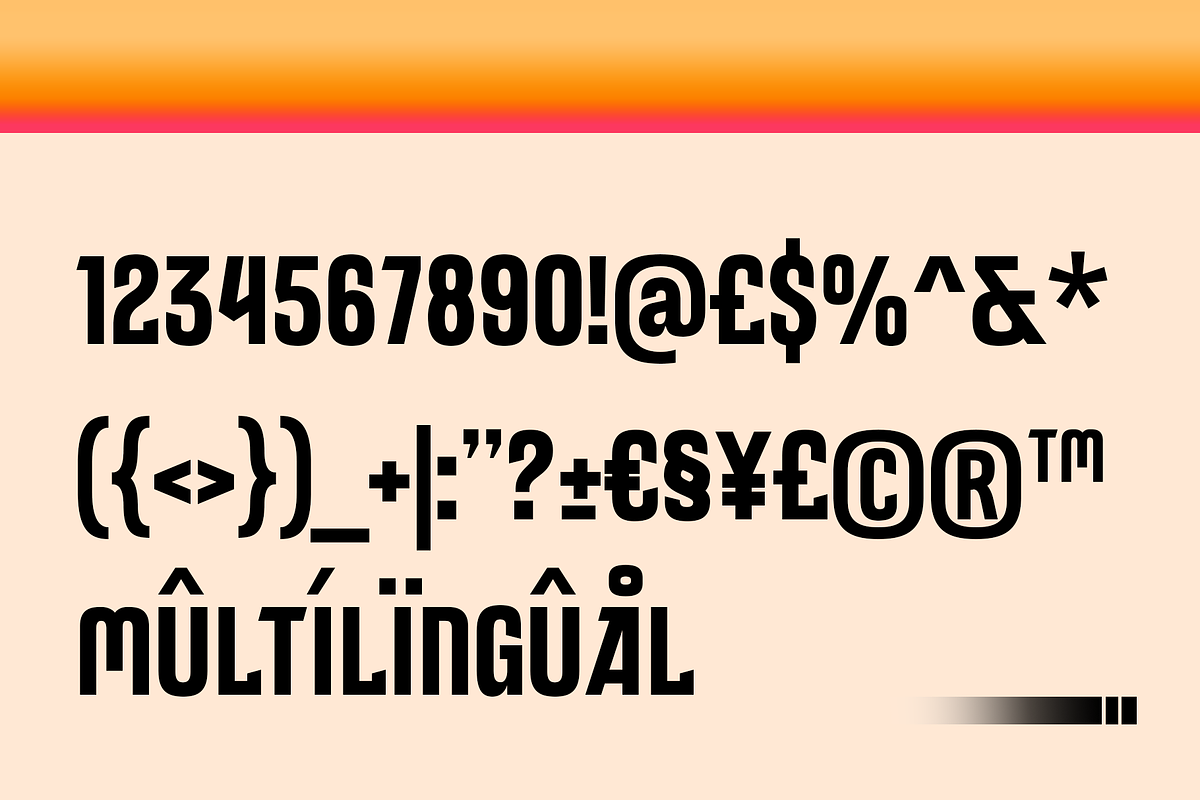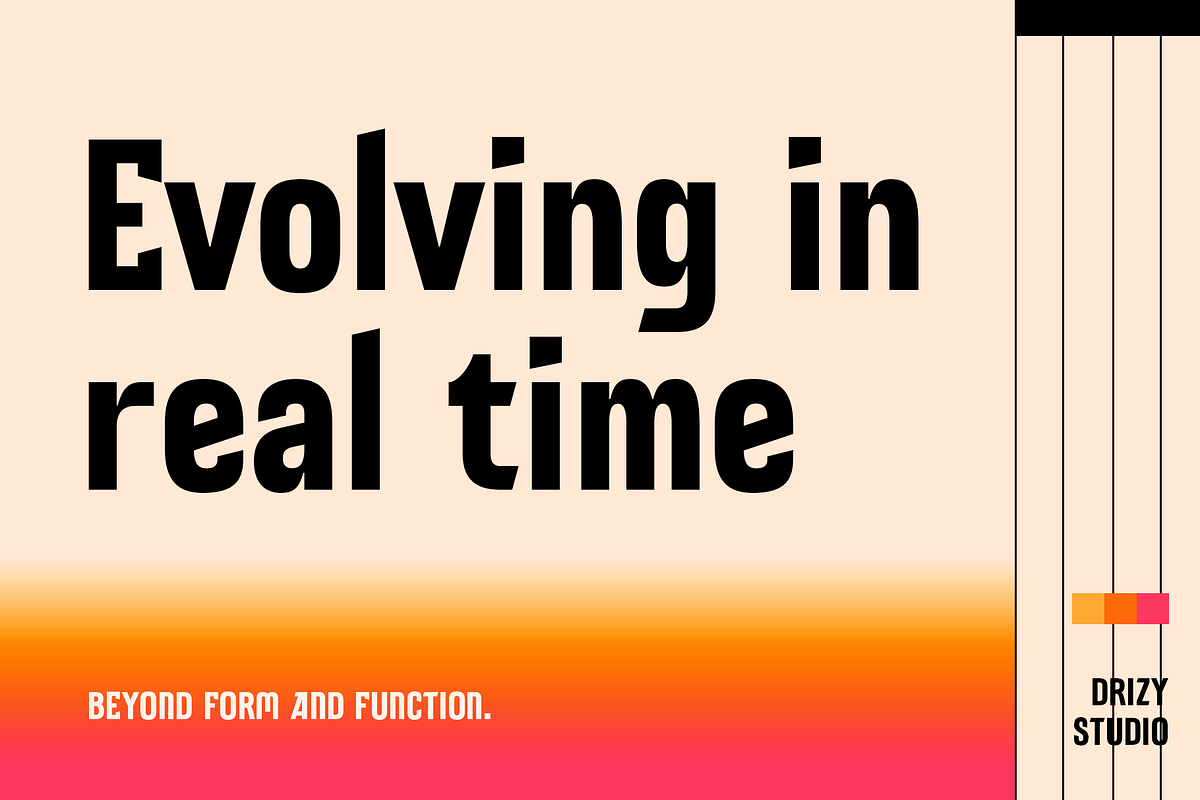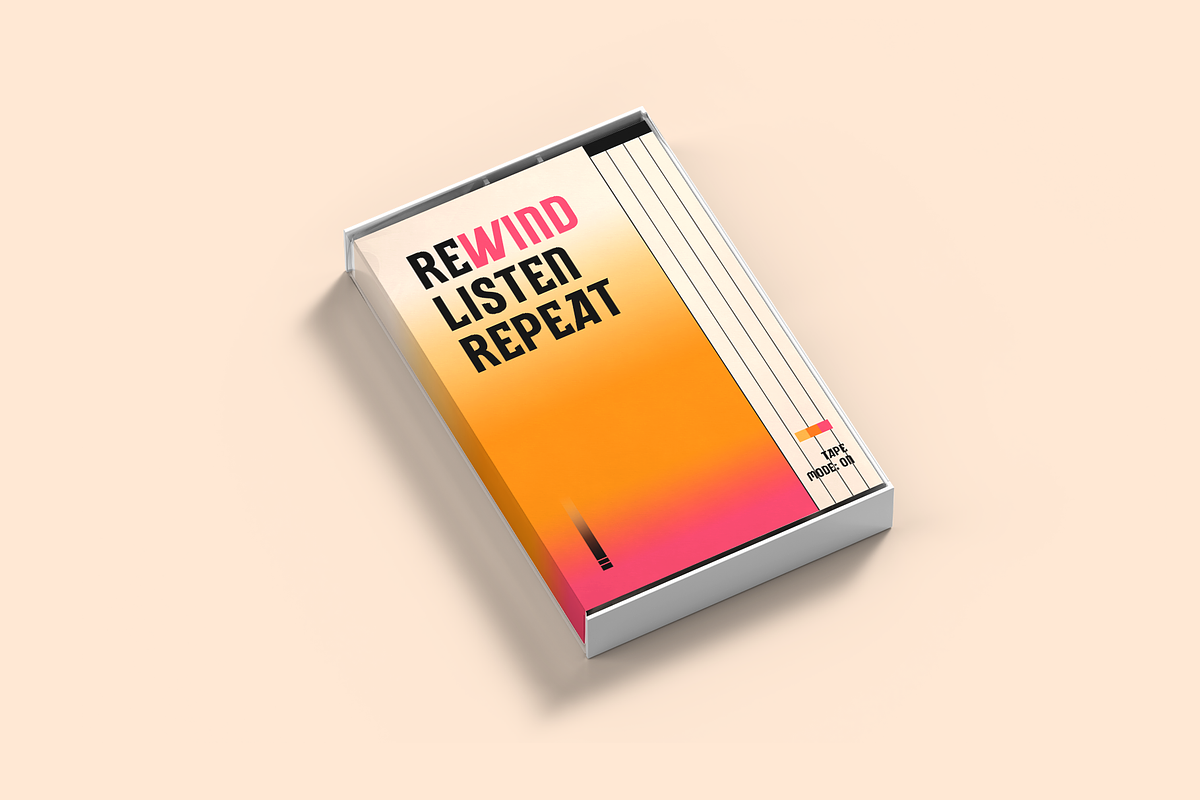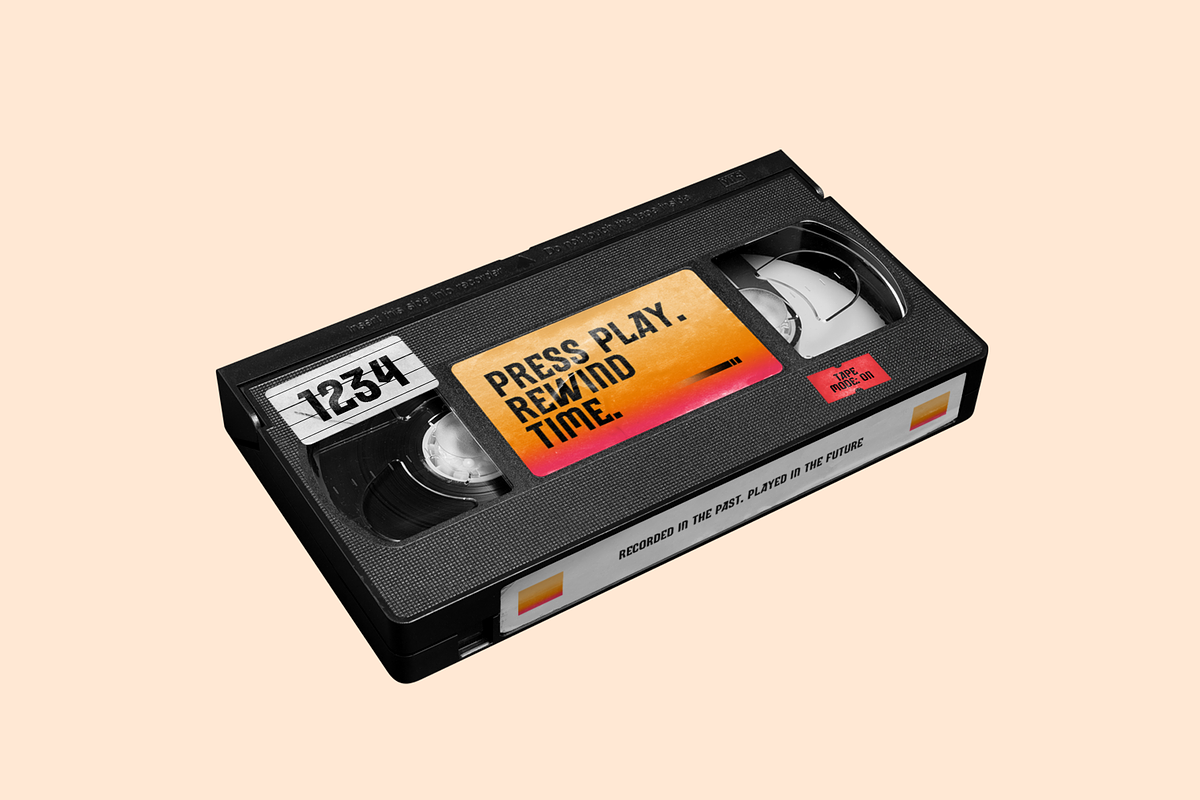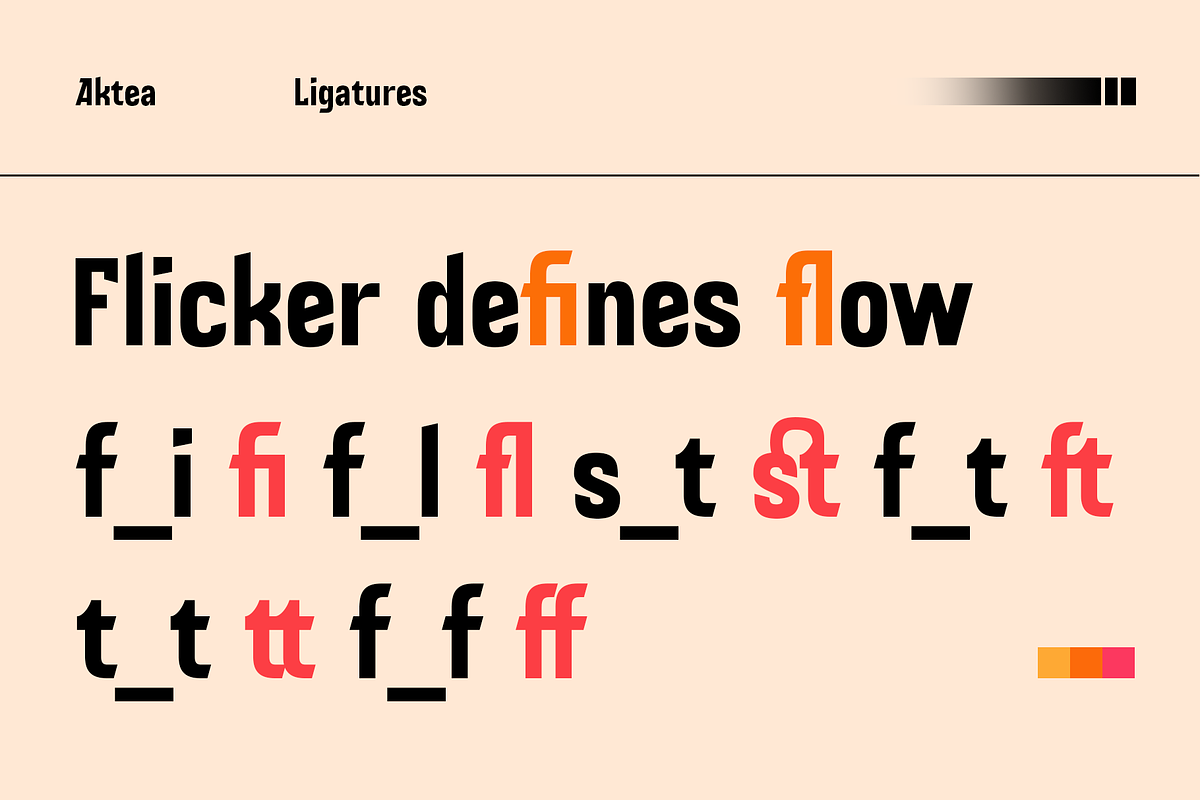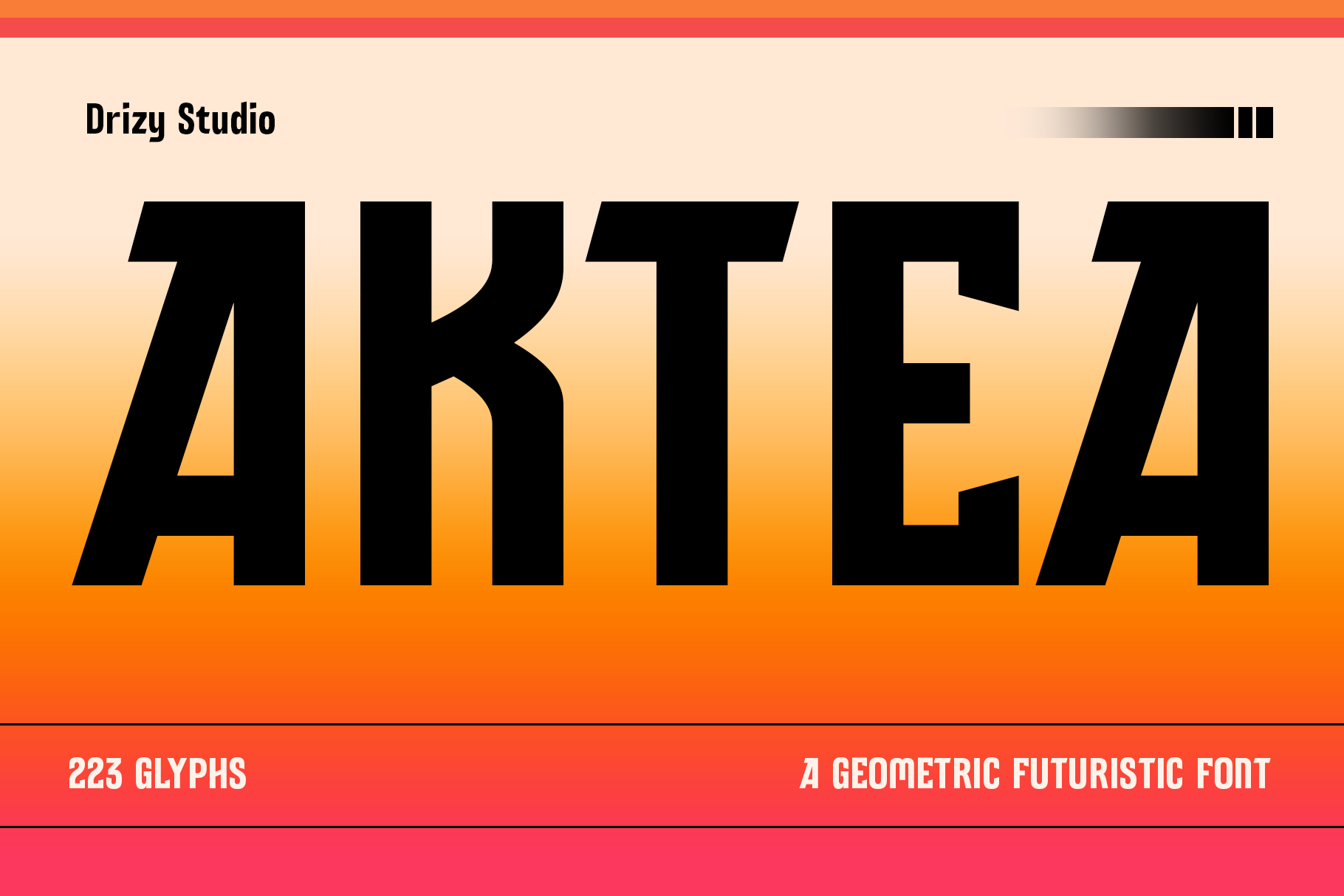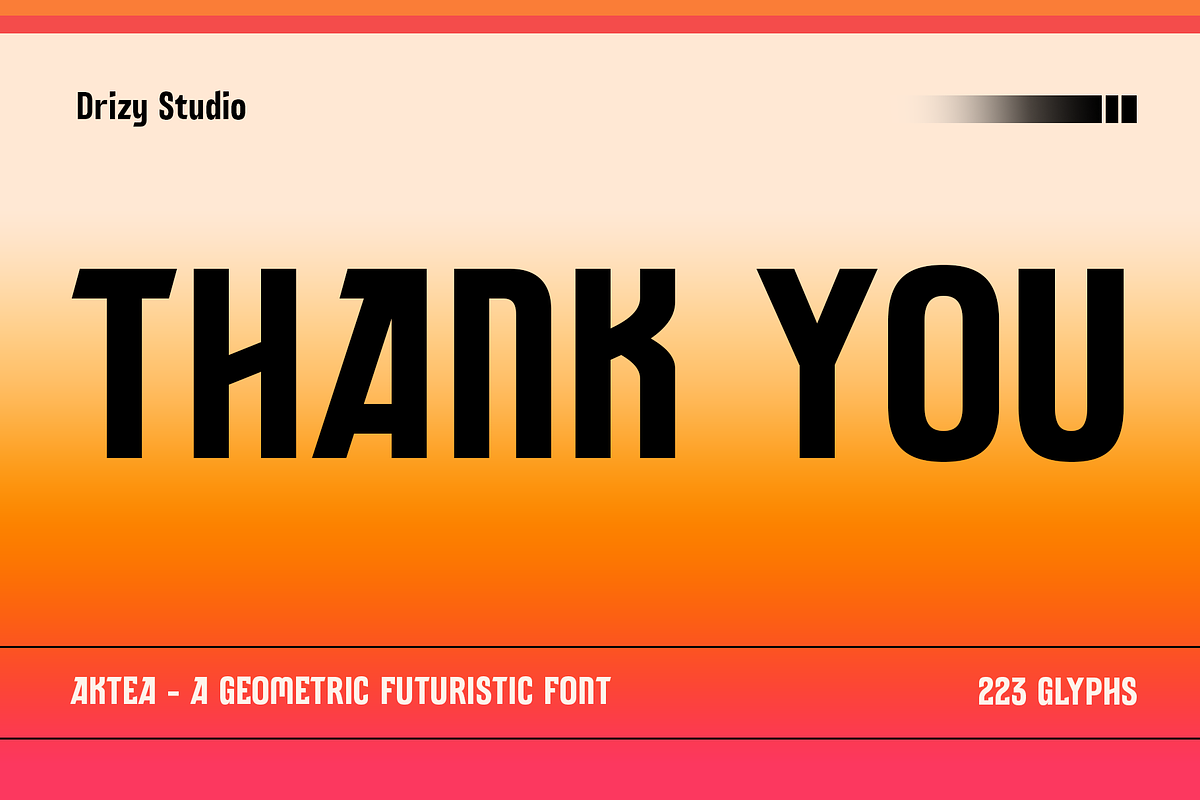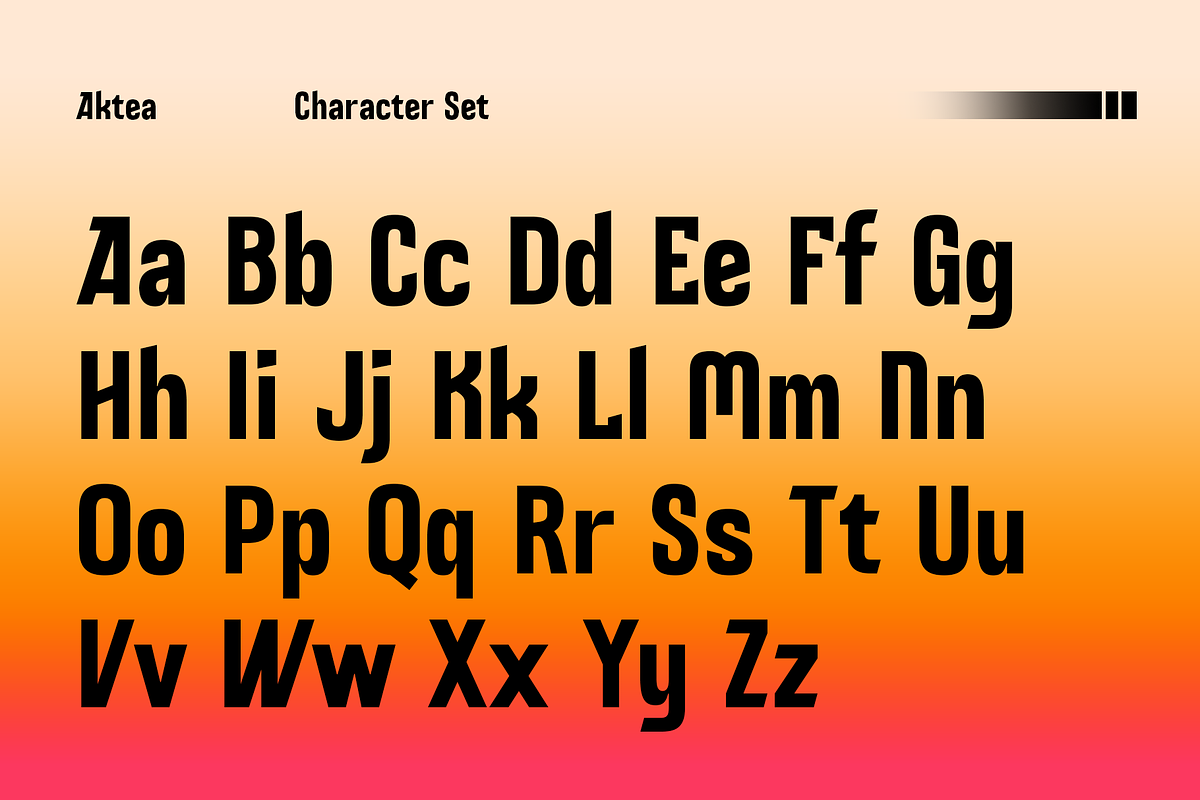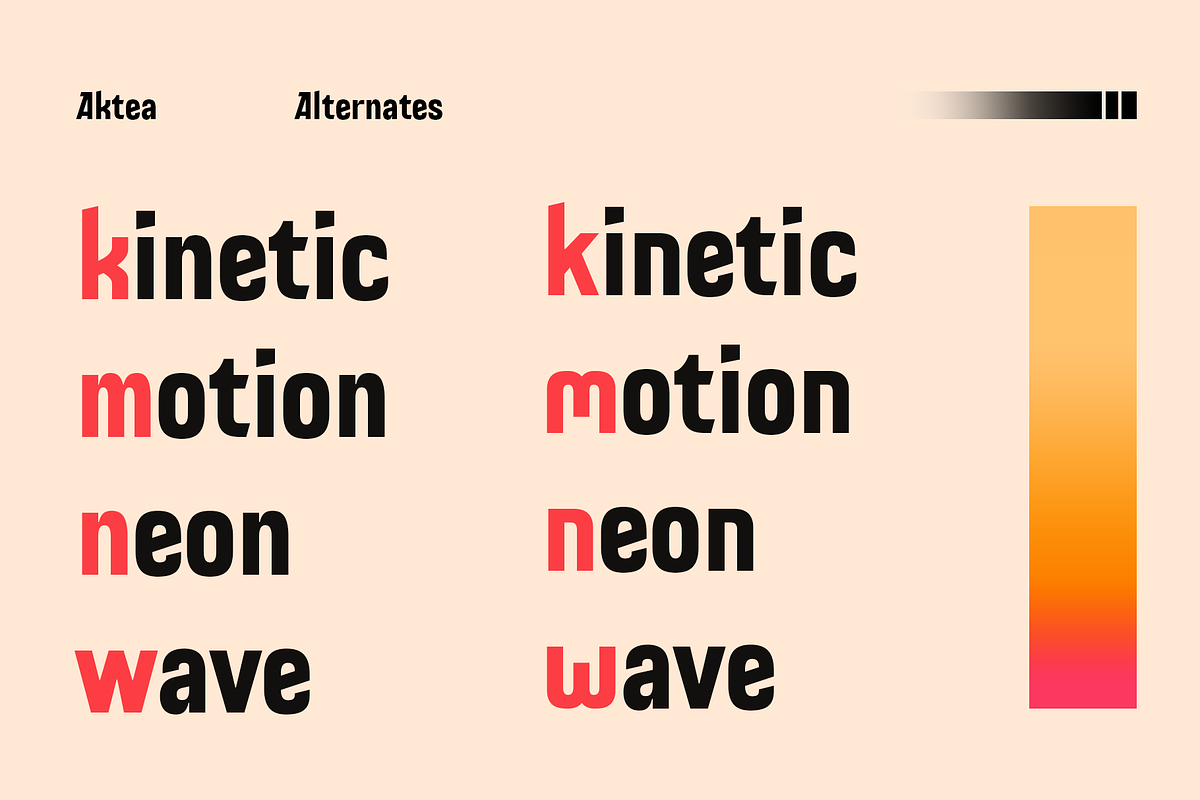
Aktea – A Geometric Futuristic Font
Aktea – A Geometric Futuristic Font is a modern display typeface crafted with clean geometric structures and a forward-thinking aesthetic. Its sharp lines, balanced proportions, and futuristic character make Aktea stand out with a strong, confident presence.
Designed to feel innovative and high-tech, Aktea works perfectly for logos, branding, technology projects, sci-fi visuals, posters, headlines, and digital interfaces. The font combines clarity with style, ensuring excellent readability while still delivering a bold visual impact.
Aktea – A Geometric Futuristic Font Features:
- Punctuation & Numbers